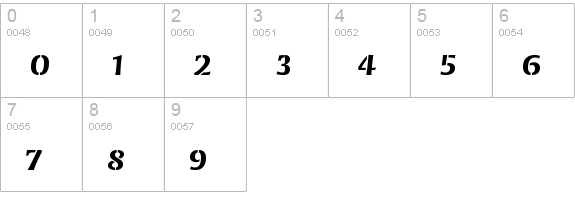
Conga Brava Stencil Std Semibold is a sub-bold, structured variant in the Conga typeface family \xE2\x80\x94 well suited to sub-headlines and emphasised passages.
Conga Brava Stencil Std Semibold font is a bold and striking typeface that exudes a sense of strength and modernity. With its clean lines and stencil design, this font is perfect for making a bold statement in your designs. The robust semibold weight of this font ensures that your text will stand out and grab attention. What's even better is that Conga Brava Stencil Std Semibold font is available for free download at FontsMarket.com. You can easily add this versatile and eye-catching font to your collection without any cost. Whether you're working on posters, logos, or any other design project, this font will surely elevate your work to the next level. Download Conga Brava Stencil Std Semibold font today and unleash your creativity!